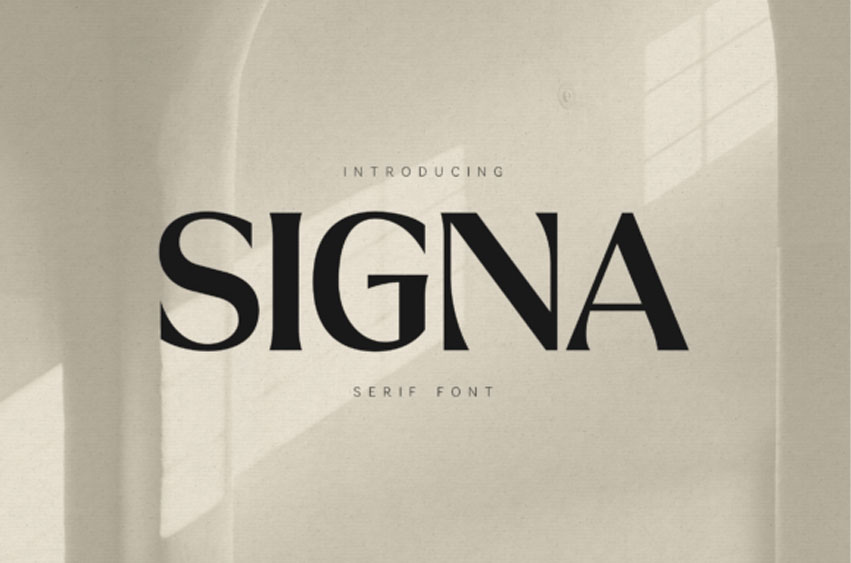
Signa Font
Signa Font Command the page with Signa, a high-contrast serif font engineered for prestige and impact. Signa masters the art of the “thick-and-thin” transition, featuring massive, authoritative stems paired with delicate, hairline serifs. This typeface reimagines classic typography through a contemporary lens, offering a structural elegance that anchors any layout with a professional, established feel.
Best Used For: Fragrance and cosmetic branding, luxury magazine mastheads, premium spirit labels, and avant-garde editorial design.